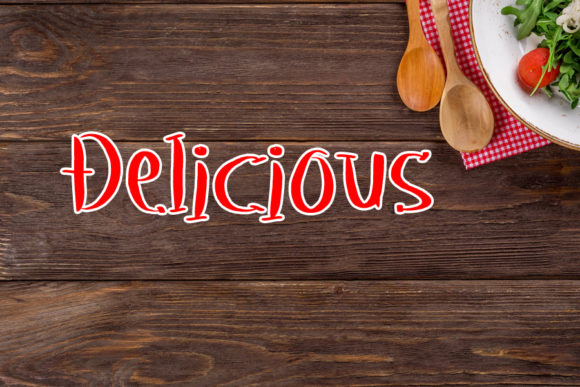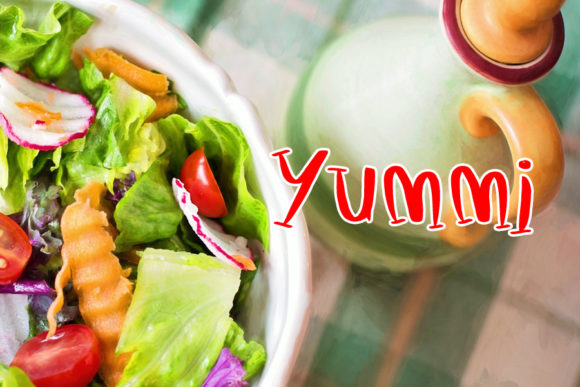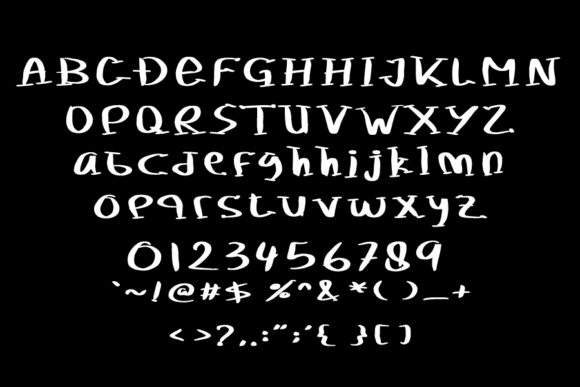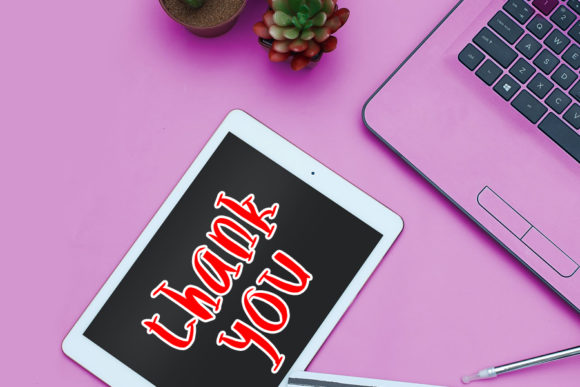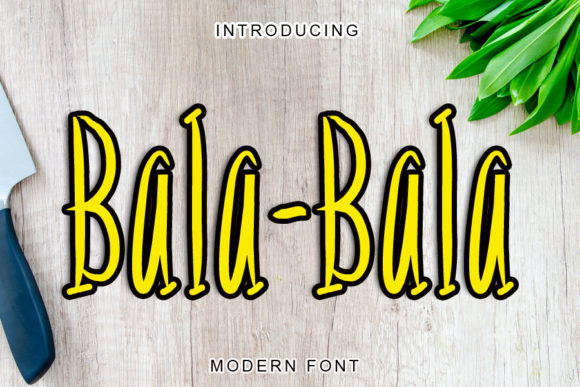
Bala-bala Font: Elevate Your Designs with a Simple yet Striking Display Font
In the world of design, fonts play a crucial role in conveying messages, evoking emotions, and setting the tone for a brand or project. With countless font options available, finding the perfect one that balances simplicity, elegance, and impact can be a daunting task. This is where the Bala-bala font comes into play – a simple and neat lettered display font designed to make your creative ideas stand out.
What is Bala-bala Font?
Bala-bala is a thoughtfully crafted display font that embodies simplicity and sophistication. Its clean lines, balanced proportions, and elegant letterforms make it an excellent choice for designers and crafters looking to add a touch of refinement to their projects. Whether you’re working on a branding campaign, a website, a poster, or any other visual material, Bala-bala is poised to elevate your design to the next level.
Key Features of Bala-bala Font
- Simplicity: Bala-bala’s design is rooted in simplicity, making it versatile and easy to read. Its straightforward yet stylish approach ensures that your message is conveyed clearly and effectively.
- Neat Lettering: The font boasts neat and well-defined letterforms that contribute to its elegant appearance. Each letter is carefully crafted to ensure consistency and harmony across the font.
- Display Font: As a display font, Bala-bala is specifically designed to catch the eye. It’s perfect for headlines, titles, and any other prominent text in your designs.
- Versatility: Bala-bala can be used across various design projects, from digital platforms like websites and social media to print materials such as brochures, posters, and business cards.
Benefits of Using Bala-bala Font
Incorporating Bala-bala into your designs comes with several benefits:
- Enhanced Readability: Its simple and clean design ensures that your text is easy to read, making it accessible to a wider audience.
- Unique Aesthetic: Bala-bala adds a unique touch to your designs, setting them apart from more commonly used fonts.
- Time-Saving: With Bala-bala, you can achieve professional-looking results without spending hours on font customization.
How to Use Bala-bala Font Effectively
To maximize the impact of Bala-bala, consider the following tips:
- Pair with Complementary Fonts: Combine Bala-bala with simpler fonts for body text to create a balanced and visually appealing design.
- Experiment with Sizes: Play with different font sizes to emphasize certain parts of your text and create a hierarchy of information.
- Color Matters: Choose colors that complement your brand and the overall mood of your design. Bala-bala works well with both bold and subtle color schemes.
- Consistency is Key: Use Bala-bala consistently across your design project to maintain a cohesive look and feel.